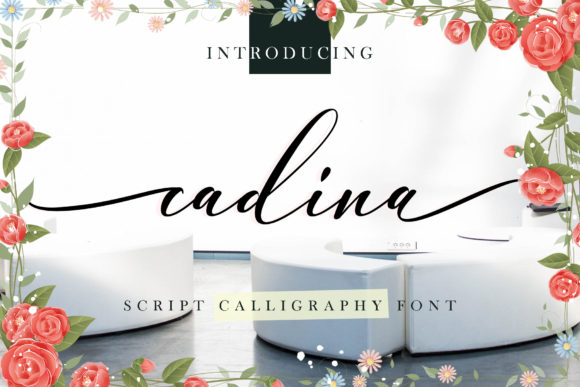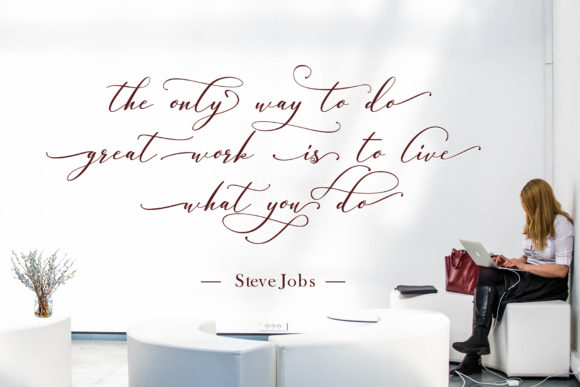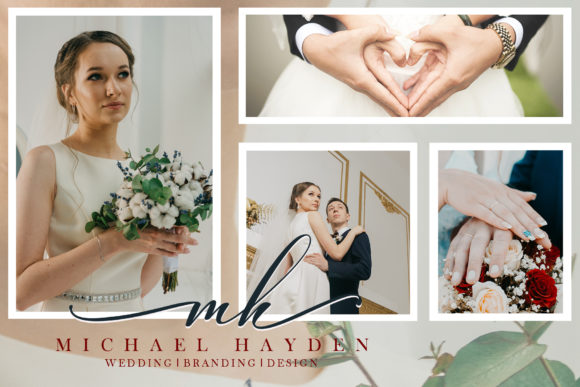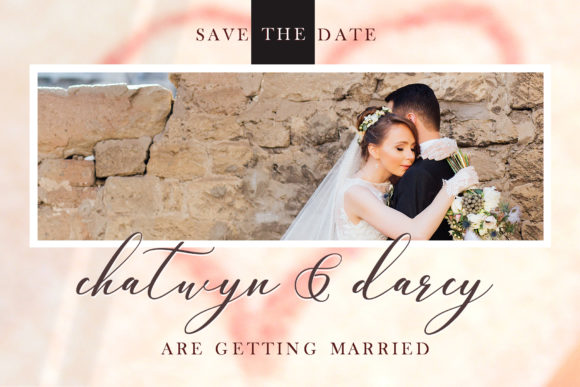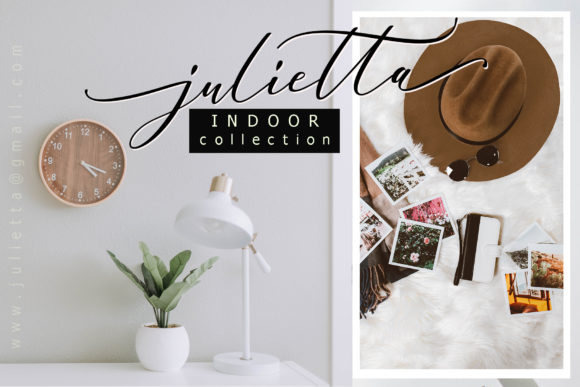
Cadina Font
About Cadina Font
Cadina is a beautiful and light script with some elegant swashes. It will effortlessly turn any design project into a stand out.